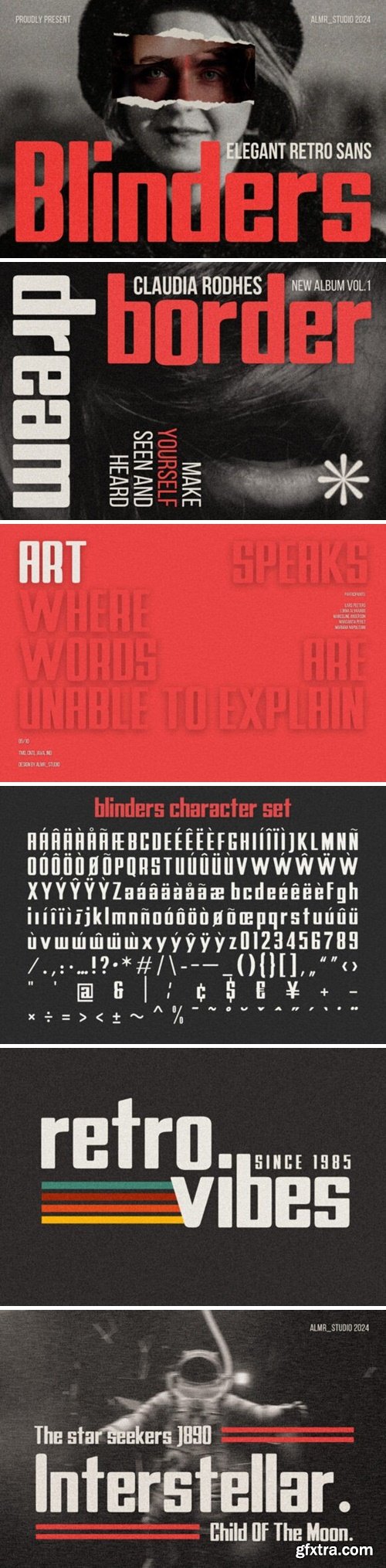Blinders Font
Introducing Blinders – elegant retro sans. Blinders is a retro and simple font, best used as a display for headings, logos, branding, magazines, product packaging and invitations.
Bulgie Font
Bulgie is a fresh and vibrant retro sans font that captures the playful spirit of mid-century design. With its rounded edges and bold, friendly letterforms, Bulgie brings a nostalgic yet contemporary vibe to your creative projects. Perfect for logos, posters, packaging, and social media graphics, this font adds a touch of fun and personality to any design. Bulgie’s unique charm and versatile style make it an ideal choice for anyone looking to create standout visuals with a retro flair.
Dumbdore Font
Dumddore is a meticulously crafted Display Typeface with a bubble style that brings a modern and captivating touch to all your design projects. Inspired by contemporary fonts, Dumddore features rich OpenType capabilities, allowing for creative typographic experimentation. Its versatile form adapts effortlessly to various design needs, whether it’s posters, movie titles, book covers, branding materials, or other large-scale projects. With extensive language support, this font is designed for global use, making it an ideal choice for designers seeking a bold and dynamic presence in their work. Elevate your designs with the unique and memorable charm of Dumddore.
Brilliant Font
Brilliant is a modern serif typeface that exudes elegance and sophistication. With its refined serifs and balanced letterforms, Brilliant is perfect for creating high-end branding, editorial designs, and luxurious packaging. This typeface combines classic serif elements with contemporary styling, offering a timeless appeal with a fresh twist. Whether used for headlines, logos, or body text, Brilliant adds a touch of class and professionalism to any project, making it an ideal choice for those seeking a polished and versatile font.
CM - Costaline Font Family 288994738
Costaline is a harmonious and stylish contemporary serif typeface with a classic feel. Includes 18 Fonts, upright and italic, with weights ranging from thin to black. Natural curves, swollen stems and slants, grow with the character as the font weight increases. While thinner weights have lowered contrast and optical correction to create a warm and soft look. Featuring beautiful italics with perfectly matched weights. OpenType features allow for the application of typography such as ligatures and support for multiple languages.
Blaster Font
Blaster has a strong, aggressive look with sharp lines and curves. This font has hard corners and is slightly tilted towards the vertical, giving it a sharp and intimidating impression. accompanied by additional ligatures and alternates that you can adjust yourself. Can be applied as film poster designs, book covers, quotes, etc.
Cowra Font
Cowra is display serif font with elegant and modern feels. It will be perfectly used for Branding, Logo Design, Lettering, Logotype, Clothing, Poster, magazine, packaging, posters, shopping bags, t-shirts, book covers, photography, special events and other design project.
Cattelia Font
Cattelia handwritten, modern calligraphy script, which combines classic style with modern style calligraphy, make this a collection in your font library
Reossghotre Font
Trendy, elegant, luxury, retro & modern style serif font for your new fancy projects. Stylish, creative and classic style on Caroline font will be great for any modern or classy branding project. Lot of alternates and ligatures will help you to create unique and original logo.
Craypick Font
Craypick is a Modern Handwritten Brush Font Craypick is perfect for product packaging, branding project, megazine, social media, wedding, or just used to express words above the background.
Bathula Font
Introducing Bathula, a font that effortlessly mingles charm and elegance. Its sophisticated craftsmanship transforms ordinary wedding invites, thank you notes, quotes, greeting cards, logos, and business cards into extraordinary pieces of artistry. Bathula’s handwritten touch truly sets any design apart. Plus, Bathula is PUA encoded, providing easy access to all its unique glyphs and swirls, making your design journey smooth and enjoyable. Delight in the grace of Bathula, a font that adds a bespoke handwritten feel to all your design needs.
Skateboard Wheels Font
Skateboard Wheels Font includes a complete set of uppercase and lowercase characters, numbers, and a wide range of punctuation marks and symbols. It features a stunning character set, perfectly managed with optimal spacing and kerning. Skateboard Wheels Font can complement any project, including billboards, brand logos, brochures, headers, labels, packaging designs, posters, screen prints, stationery, stickers, websites, and more.
Grocer Berkog Font
Grocer Berkog Font is a playful and authentic display font. The font is suitable for any branding project like logo, kids, and many more. Outstanding in a wide range of contexts.
Neon Grinch Font
Neon Grinch is an exquisite stylish font, seamlessly blending modern quality with the whimsical charm of the Grinch Font. You can use it in any project so you will look unique and different. Use it for t-shirts, covers, brochures, etc.
History Glamour Font
History Glamour Font is a classy handwritten font with a splash of luxury that comes with a minimalist look is drawn from the line pull of natural handwriting, making it an elegant look for any design, such as: brand logo, brochure, catalog, cover, envelope, invitation, label, mockup design, packaging design, quote, stationery, title, watermark, website, etc.